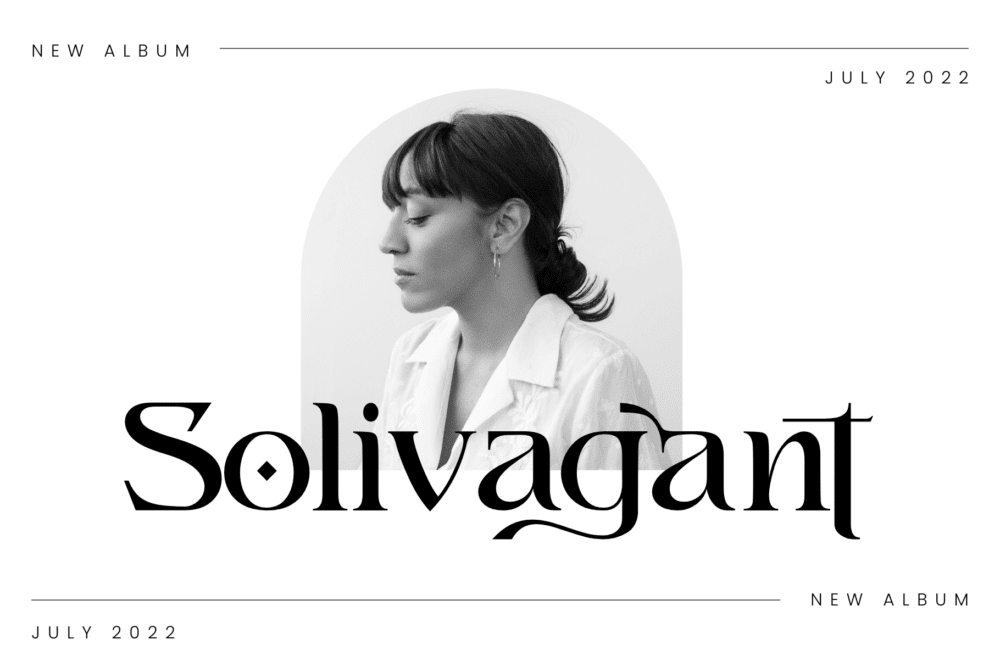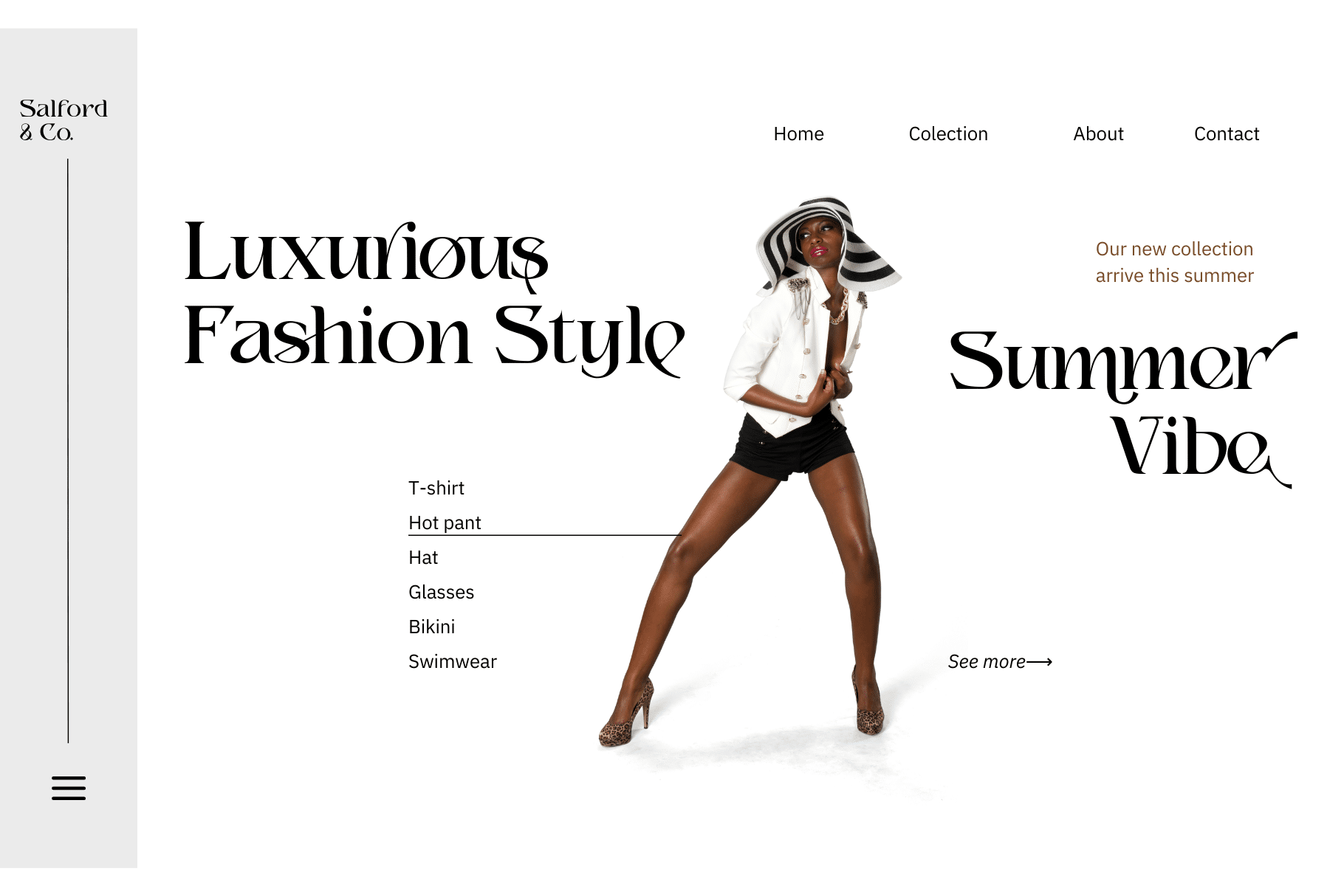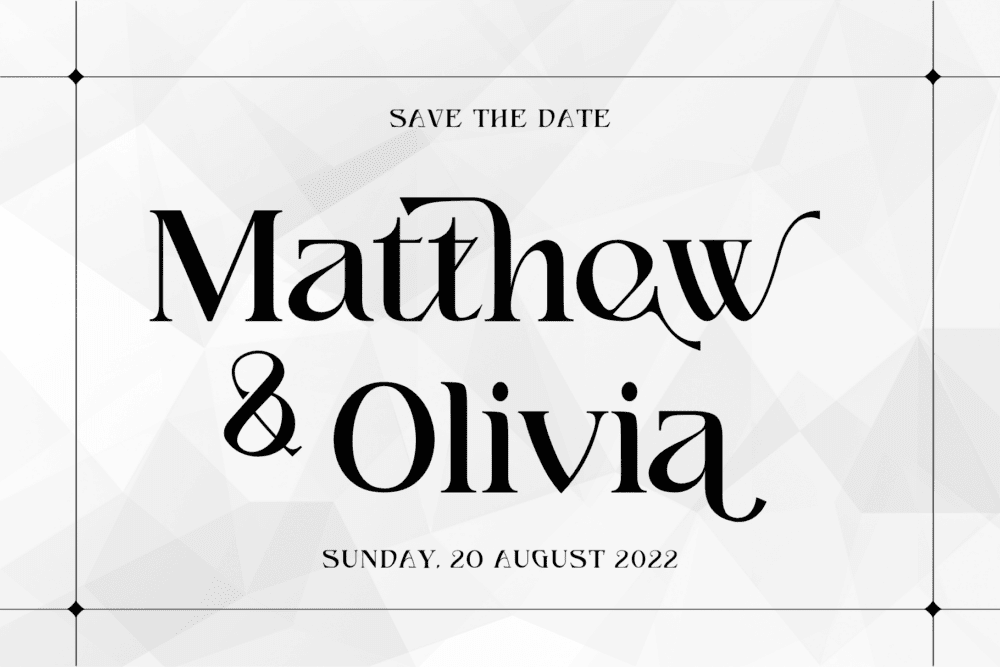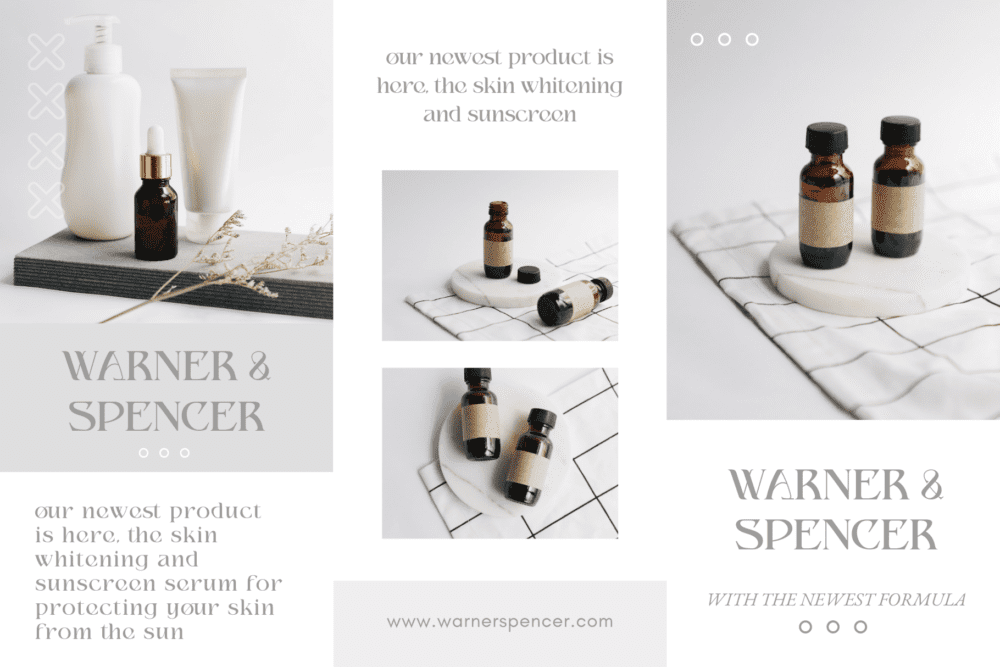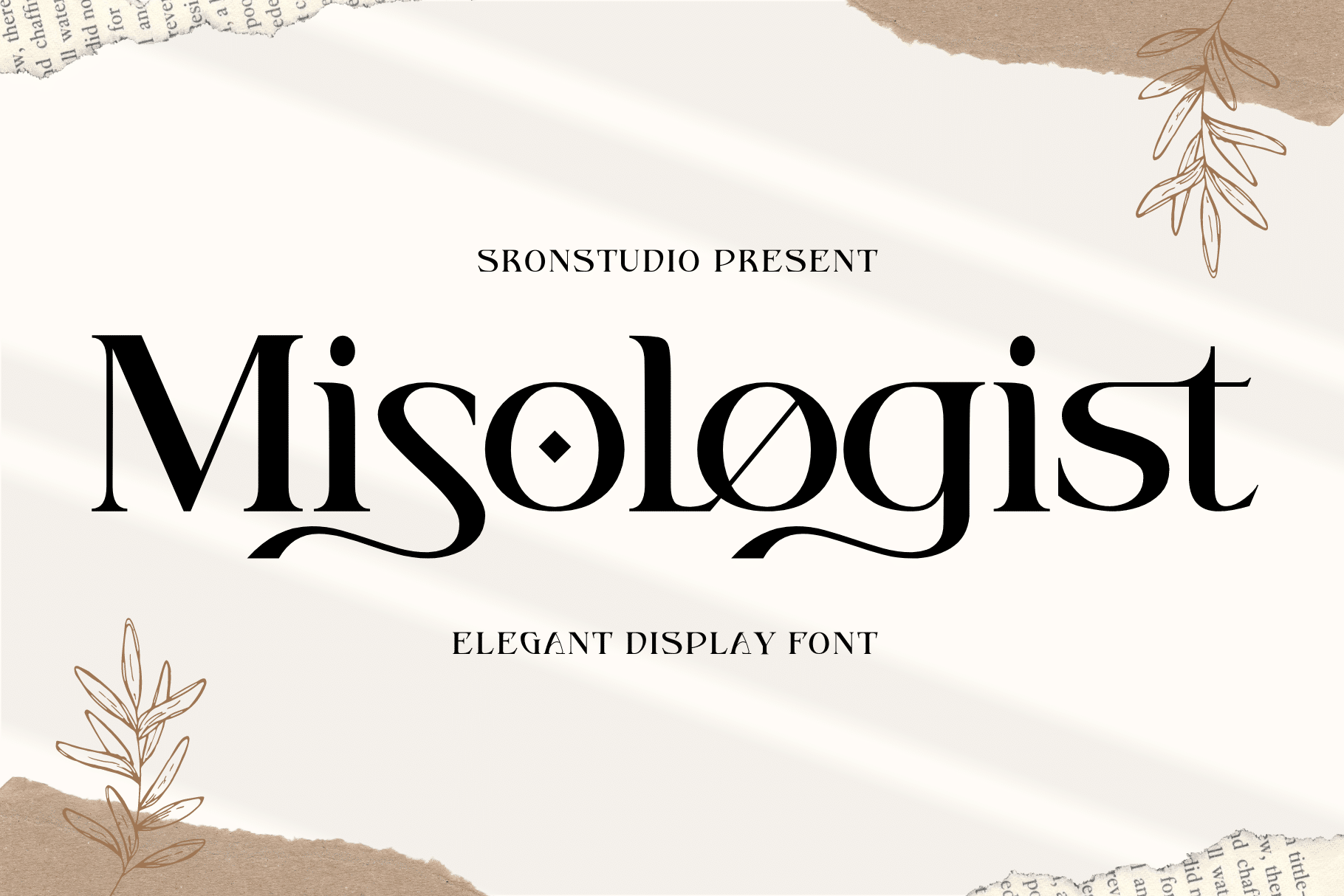
Misologist Font
Misologist – Display Font comes with an elegant and modern touch this font is perfect for branding, invitation, stationery, wedding designs, social media posts, advertisements, product packaging, product designs, label, photography, watermark, special events, and more.